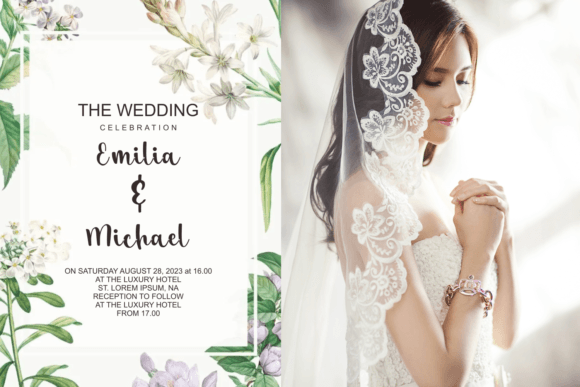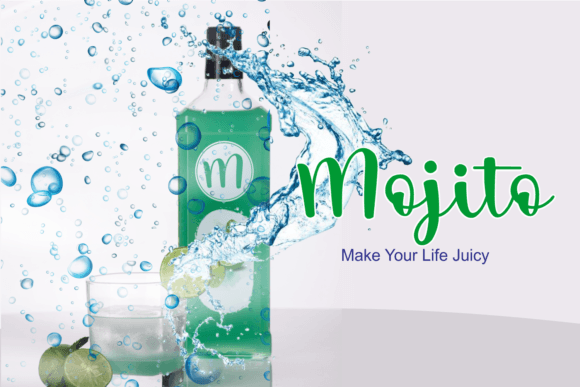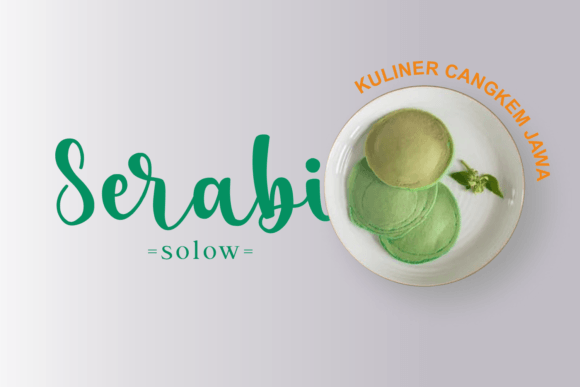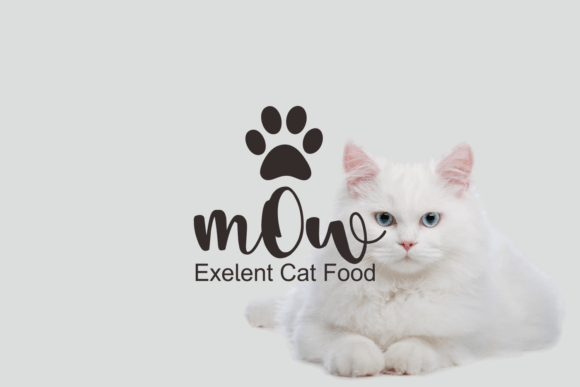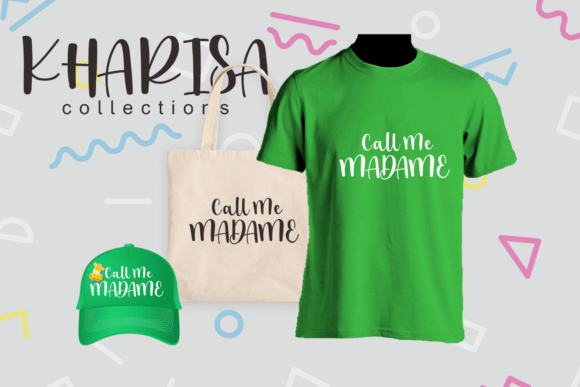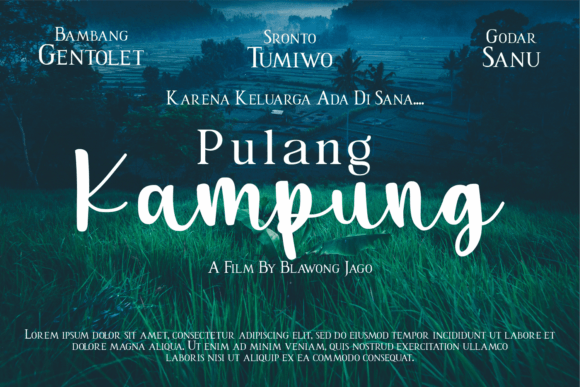
Dellova Font: The Simple and Friendly Handwritten Font for All Occasions
Are you a designer, crafter, or DIY enthusiast looking for a versatile and charming font to elevate your creative projects? Look no further than Dellova Font, a simple and friendly handwritten font that’s perfect for a wide range of applications. In this article, we’ll explore the features and benefits of Dellova Font, and why it’s about to become your new favorite go-to font for all occasions.
What is Dellova Font?
Dellova Font is a beautiful, handwritten font that’s designed to be both elegant and approachable. Its simple, yet distinctive style makes it perfect for a variety of creative projects, from digital designs and crafts to stickers, invitations, logos, presentations, and greeting cards. Whether you’re a professional designer or a DIY enthusiast, Dellova Font is sure to inspire your creativity and add a personal touch to your work.
Key Features of Dellova Font
So, what makes Dellova Font so special? Here are just a few of its key features:
- Simple and Friendly: Dellova Font has a warm, approachable feel that’s perfect for creating a connection with your audience.
- Handwritten Style: The font’s handwritten style gives it a personal, human touch that’s perfect for adding a bit of personality to your designs.
- Versatile: Dellova Font is incredibly versatile, and can be used for a wide range of creative projects, from digital designs to crafts and DIY projects.
- Elegant: Despite its simplicity, Dellova Font has an elegant, sophisticated feel that’s perfect for creating beautiful, high-quality designs.
Uses for Dellova Font
So, what can you use Dellova Font for? The possibilities are endless! Here are just a few ideas to get you started:
- Crafts: Use Dellova Font to add a personal touch to your crafts, from scrapbooking to card making.
- Digital Design: Dellova Font is perfect for digital designs, including social media graphics, blog posts, and website headers.
- Stickers: Add a bit of personality to your stickers with Dellova Font, perfect for decorating laptops, water bottles, and more.
- Invitations: Use Dellova Font to create beautiful, personalized invitations for weddings, birthday parties, and other special occasions.
- Logos: Dellova Font is a great choice for logos, adding a bit of personality and whimsy to your brand identity.
- Presentations: Use Dellova Font to add a bit of elegance and sophistication to your presentations.
- Greeting Cards: Create beautiful, personalized greeting cards with Dellova Font, perfect for any occasion.
Why Choose Dellova Font?
So, why should you choose Dellova Font for your next creative project? Here are just a few reasons:
- Easy to Read: Dellova Font is incredibly easy to read, making it perfect for digital designs and crafts.
- Unique Style: Dellova Font has a unique, distinctive style that’s sure to set your designs apart.
- High-Quality: Dellova Font is a high-quality font that’s designed to produce beautiful, professional-looking results.
- Versatile: As we mentioned earlier, Dellova Font is incredibly versatile, and can be used for a wide range of creative projects.
In conclusion, Dellova Font is a simple and friendly handwritten font that’s perfect for designers, crafters, and DIY enthusiasts. Its elegant, yet approachable style makes it perfect for a wide range of creative projects, from digital designs and crafts to stickers, invitations, logos, presentations, and greeting cards. With its unique style, high-quality design, and versatility, Dellova Font is sure to become your new favorite go-to font for all occasions.